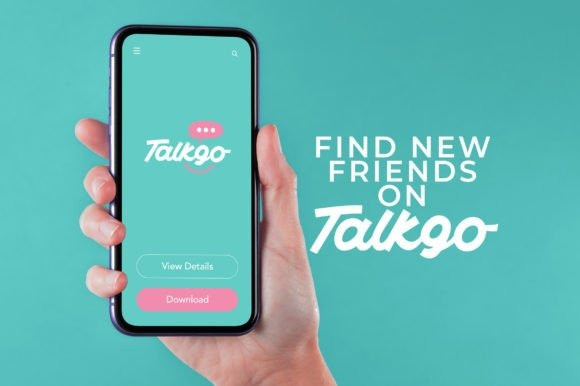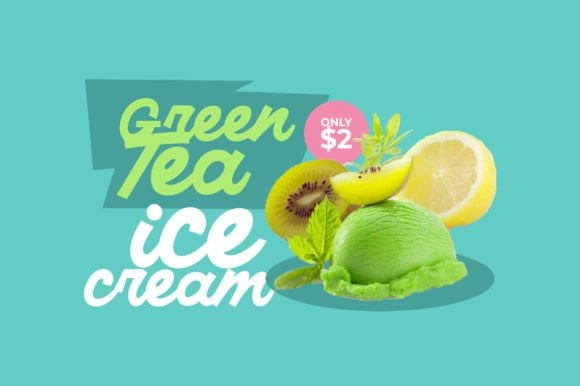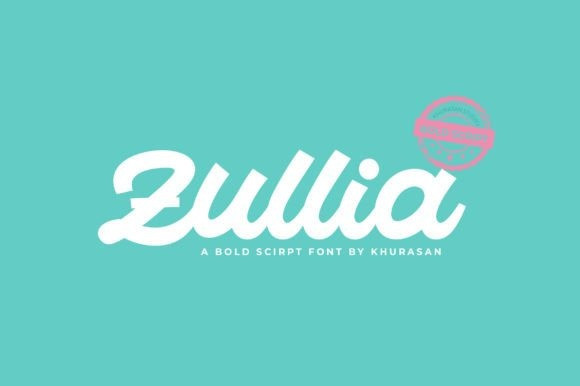
Zullia Font
Zullia Font is a fun bold script font perfect for posters, logos, magazines, book covers, banners, and many more! Get this amazing typeface, and use it to create lovely designs!